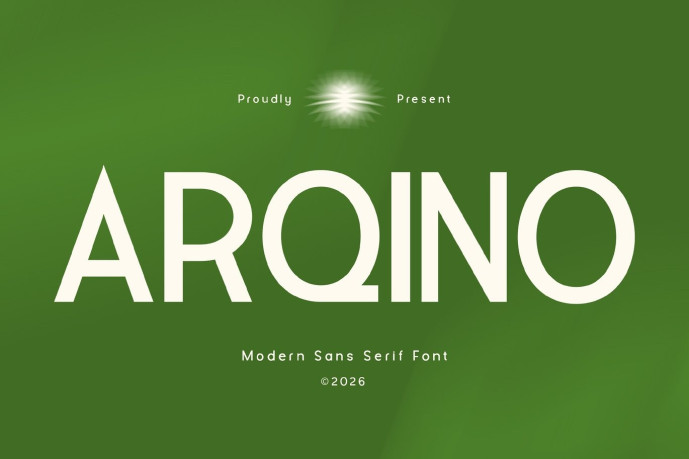
Arqino – Modern Sans Serif Font
Arqino is a modern sans serif font designed to celebrate the beauty of simplicity through clean geometry, balanced proportions, and timeless elegance. Every letter is carefully refined to create a sleek and contemporary appearance that feels professional, versatile, and effortlessly stylish. With its minimalist personality and exceptional readability, Arqino becomes the perfect foundation for designs that demand clarity without sacrificing character.